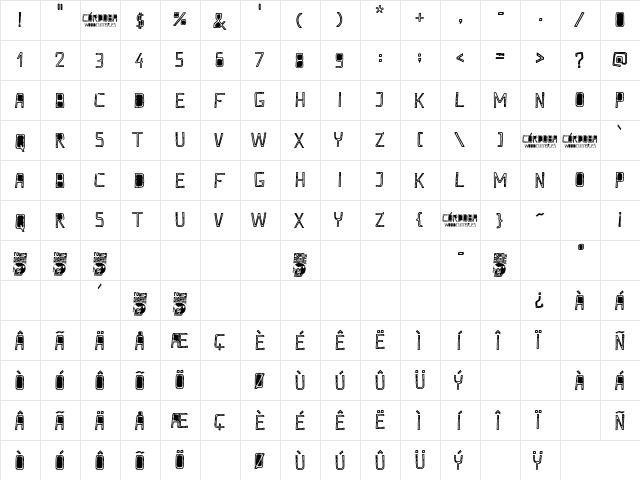
Cײdoba Regular Font Preview
Cײdoba Regular
Cײdoba Regular Font Details
| Designer | Woodcutter Manero |
Design Context for Cײdoba Typeface
Cײdoba is a composed and adaptable typeface that performs quietly and consistently across a wide range of design contexts.